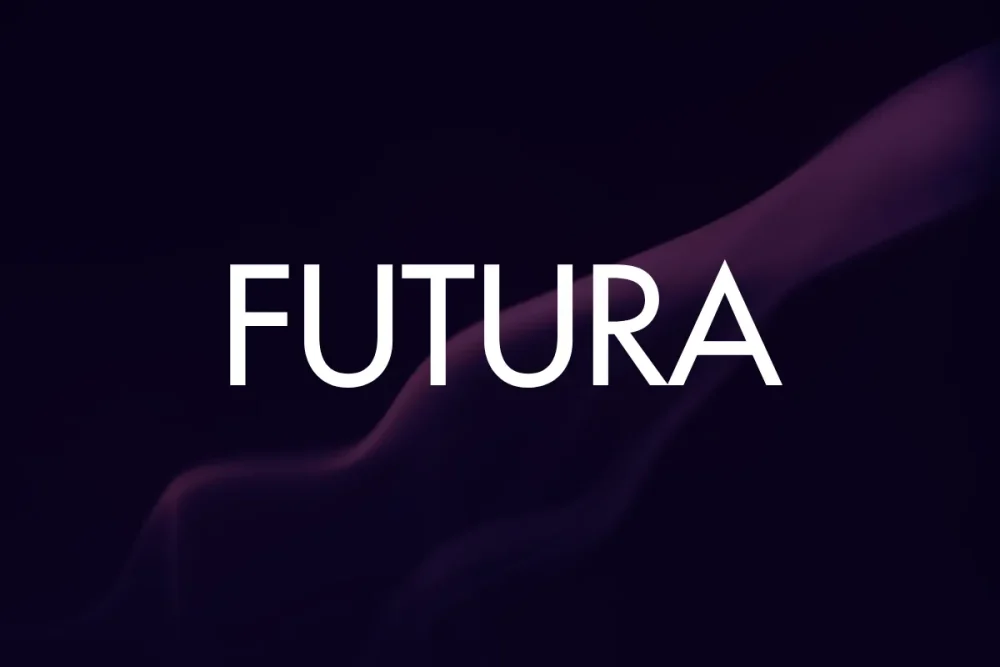
Paul Renner drew Futura in 1927 out of pure geometry — circles, triangles, and squares, with almost no adjustment for optical comfort. Almost a century later it’s still everywhere: Louis Vuitton and Supreme both use it for branding, Wes Anderson leans on it for nearly every film poster, and it was the typeface engraved on the plaque Apollo 11 left on the moon. Licensing the original today (Monotype now owns the Bauer Type Foundry catalog) can run from around $90 for a single style to several hundred for a full family. These five Google Fonts borrow the same geometric logic without the licensing bill. If you’ve been searching for free alternatives to futura, this list is built exactly for that.
Jost
The most direct free tribute to Futura’s geometry — Jost was explicitly drawn in the spirit of 1920s geometric sans-serifs, matching Futura’s near-perfect circles and triangles almost stroke for stroke. If you want the closest free match on this list, start here.
League Spartan
Part of The League of Moveable Type’s open-source collection, built on the same geometric “Spartan” proportions that were themselves early American competitors to Futura. Bolder and more condensed than Futura by default, which makes it read louder at large sizes.
Poppins
Rounder and friendlier than Futura’s stricter geometry, but built from the same circular logic. A good choice when you want geometric structure without Futura’s slightly cold, architectural edge.
Questrial
Futura’s minimalism taken even further — one weight, no frills, built for short headlines rather than paragraphs. Works well for the kind of spare, confident wordmark Futura is often hired for.
Josefin Sans
Drawn with an explicit nod to 1920s Art Deco geometric proportions — the same design era that produced Futura itself — but with narrower, more elegant proportions that suit editorial and fashion contexts particularly well.
Quick Comparison
FontStyleBest For
JostGeometric sansClosest free match to Futura
League SpartanBold geometric sansLoud, condensed headlines
PoppinsGeometric sans (rounder)Friendlier geometric feel
QuestrialGeometric sans (single weight)Minimal wordmarks
Josefin SansArt Deco geometricEditorial and fashion contexts
Frequently Asked Questions
Why do luxury brands like Louis Vuitton use a font from 1927?
Futura’s pure geometric forms read as timeless rather than trend-driven — because it isn’t tied to any particular decade’s aesthetic beyond its Bauhaus origins, it doesn’t date the way more expressive typefaces do.
Is Futura free anywhere legitimately?
Which free alternative is closest for a logo?
Jost for something that reads almost identically to Futura, or Questrial if you want an even more minimal, single-weight wordmark.